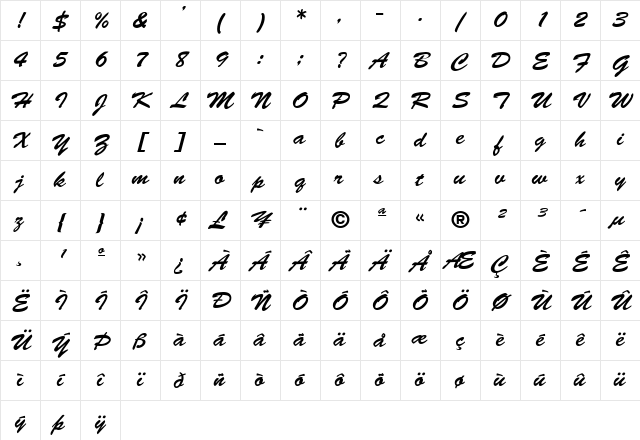
Banff Regular
Design Context for Banff
Banff is a composed and adaptable typeface that performs quietly and consistently across a wide range of design contexts.